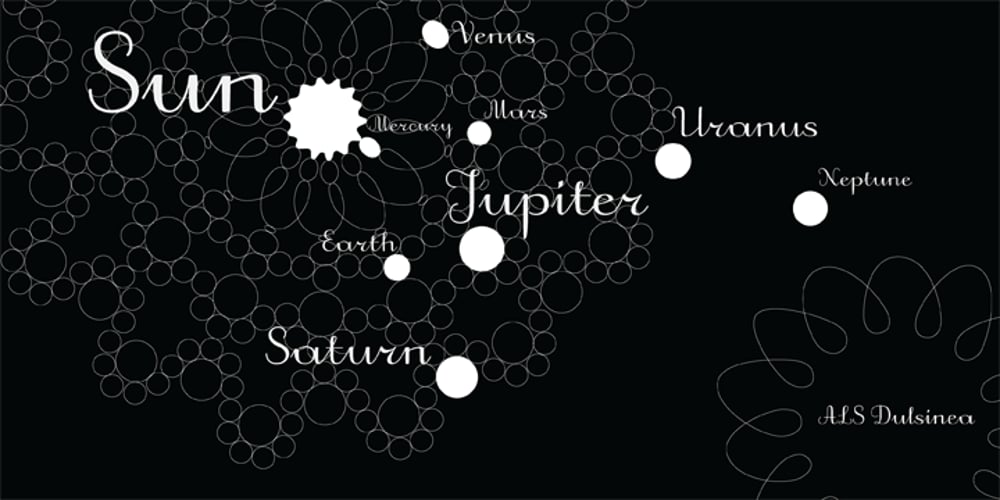
ALS Dulsinea Font Family was designed by Vera Evstafieva and published by Art. Lebedev Studio. ALS Dulsinea contains 1 styles and family package options. Decorative font based on XIX century Cyrillic handwriting. Dulsinea is a handwriting-based font, that is why most of the letters are tied to each other. Such handwriting is often seen in documents dated 2nd half of the XIX century. Its special features are rounded lengthy movements and unusual for present days sequence of strokes.